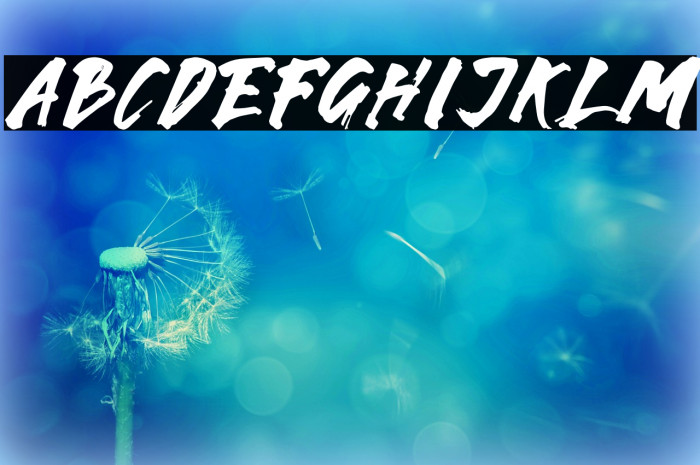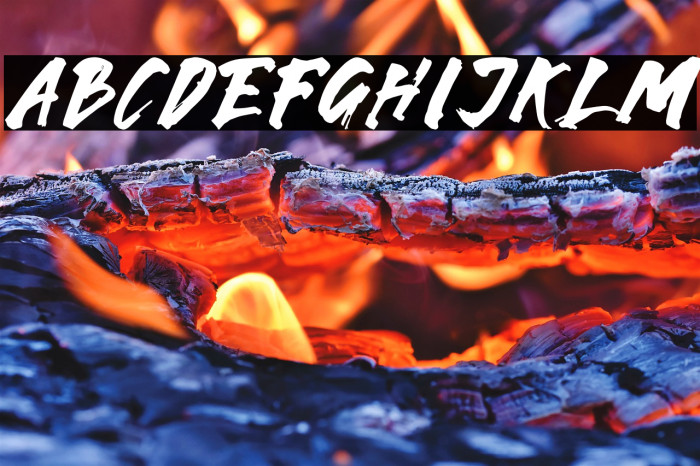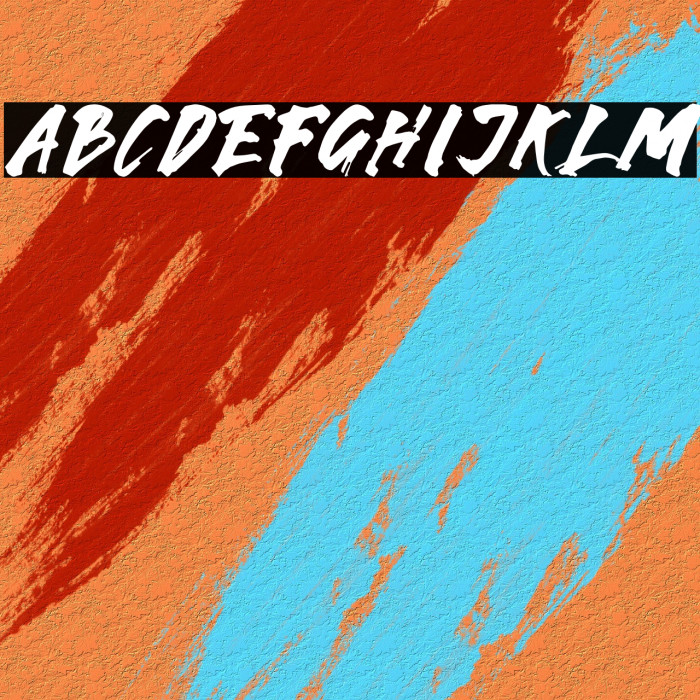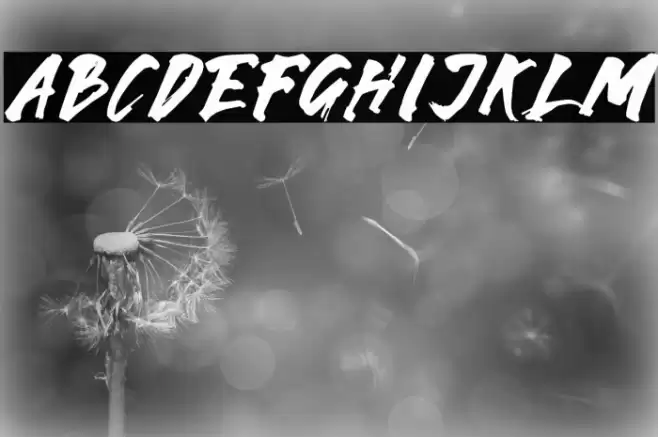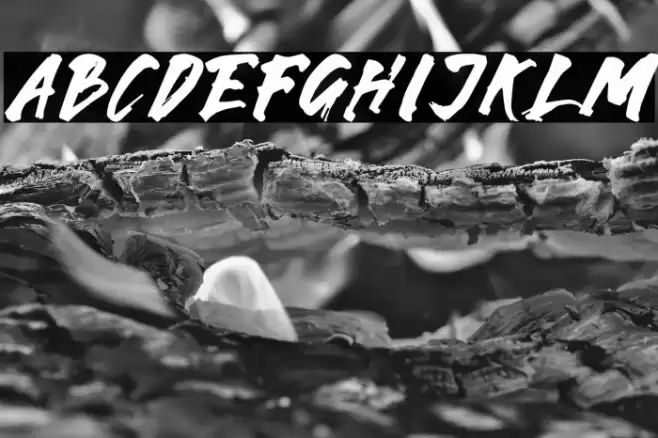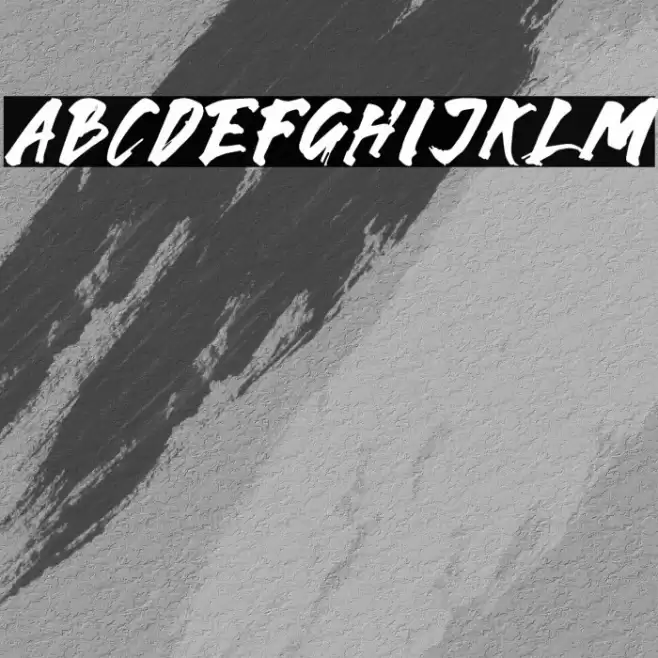
Karam Font
This font features a bold and dynamic brush script style, characterized by its thick, expressive strokes and energetic flow. The letters have a hand-painted appearance, giving them a lively and artistic feel. The uppercase letters are particularly striking, with a sense of movement and flair, while the lowercase letters maintain consistency in style, offering a cohesive look. The font's organic and slightly irregular shapes add to its charm, making it ideal for projects that require a personal touch or a creative edge.
A bold, dynamic brush script with expressive, hand-painted strokes.
- Proposed Projects: Ideal for branding, posters, invitations, and any design that requires a creative and artistic touch.